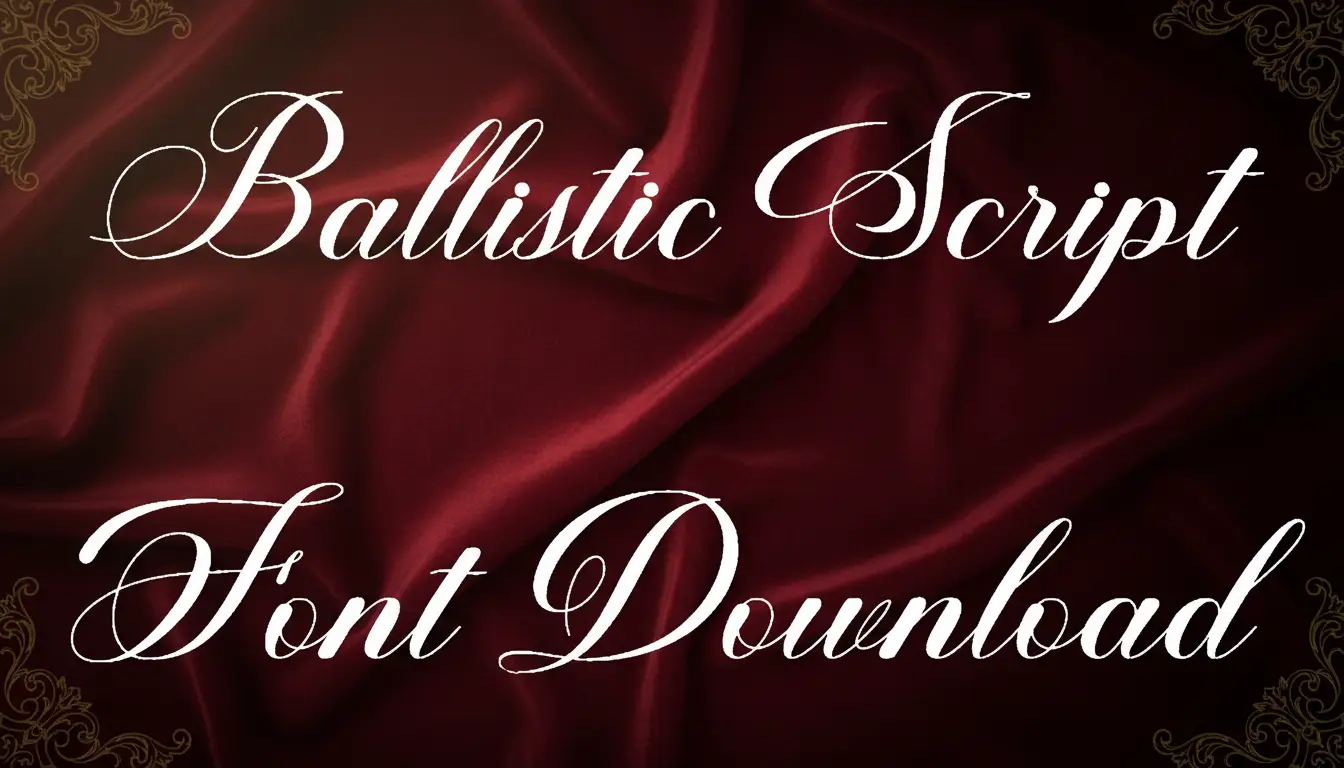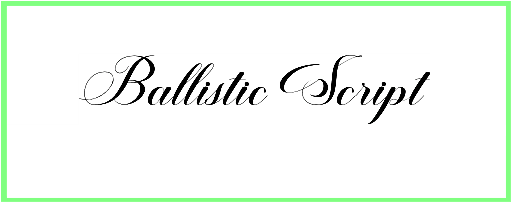
Ballistic Script Font
Ballistic Script
Ballistic Script is a script font created by RIZA HAITAMI and released through Black Studio. Its flowing, pen-made letters give names and short phrases a personal, polished look. You can download it for free and test it with your own words in the preview above.
- Designer: RIZA HAITAMI
- Publisher: Black Studio
What You Can Type With Ballistic Script
You get every letter from A to Z in both cases and all the numbers from 0 to 9, which means Ballistic Script can handle full sentences, dates and prices. Common punctuation such as &, !, ? and @ is included as well. It also has the accented letters you need for Spanish, French, German, Portuguese and Italian.
Where Ballistic Script Works Best
Think of Ballistic Script for wedding invitations, logos and signature-style headings. Script fonts read best in short bursts, so keep it to names, titles and one-line quotes. Skip all caps: script capitals are drawn to start a word, not to fill one.
Does Ballistic Script support accented letters?
Yes. Ballistic Script includes the accented letters needed for Spanish, French, German, Portuguese and Italian, so it works for more than just English.